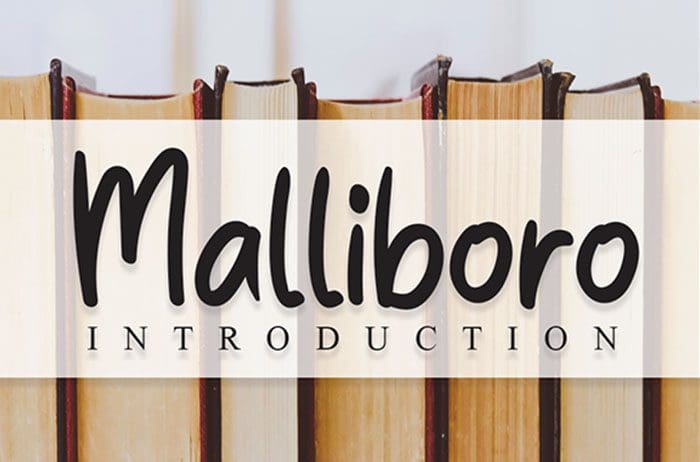
Free Malliboro Serif Font
Malliboro Serif Font
Free Malliboro serif font embodies fun, quirkiness and authenticity. This enchanting serif font will turn any creative idea into a true standout. Designed this font by Andika Studio. You can also search more freeĀ Serif Fonts.